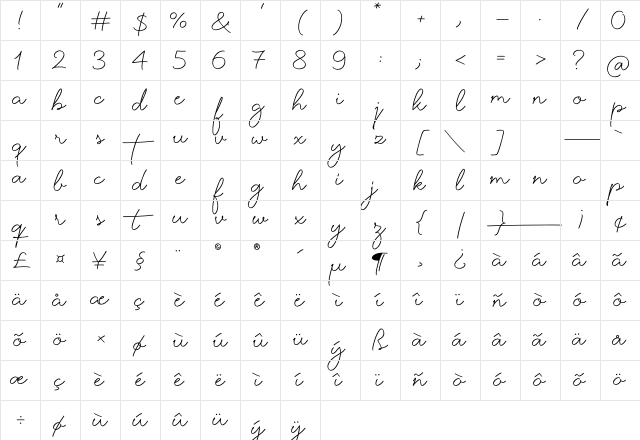
Complete Eternate Two glyph index. Displaying only characters natively supported by Eternate Two font.
Eternate is a composed and adaptable typeface that performs quietly and consistently across a wide range of design contexts.